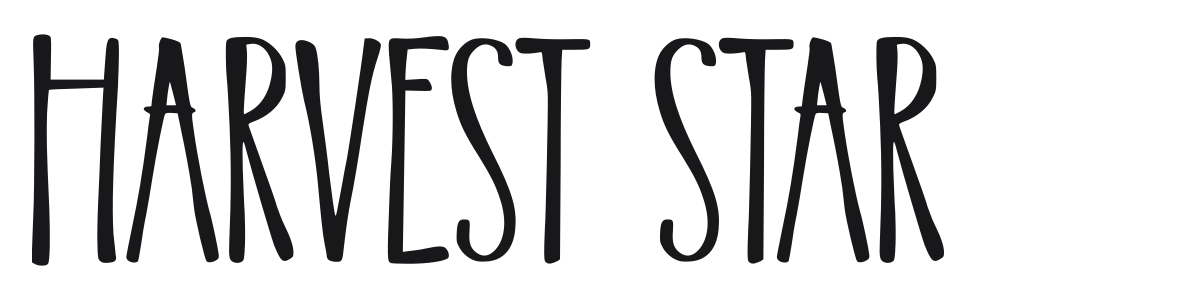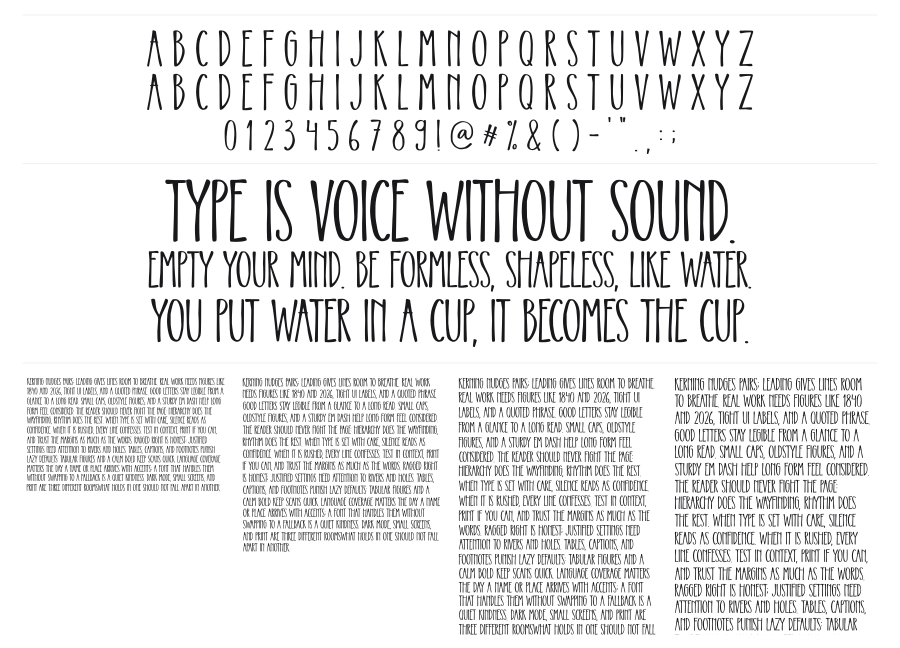
Harvest Star
Harvest Star is a tall, upright handwritten font from Abo Daniel Studio with a relaxed, hand-lettered feel. Its narrow proportions and slightly wobbly strokes give it warmth without feeling sloppy. Well-suited to artisan branding, food packaging, and any project that wants an honest, human touch.